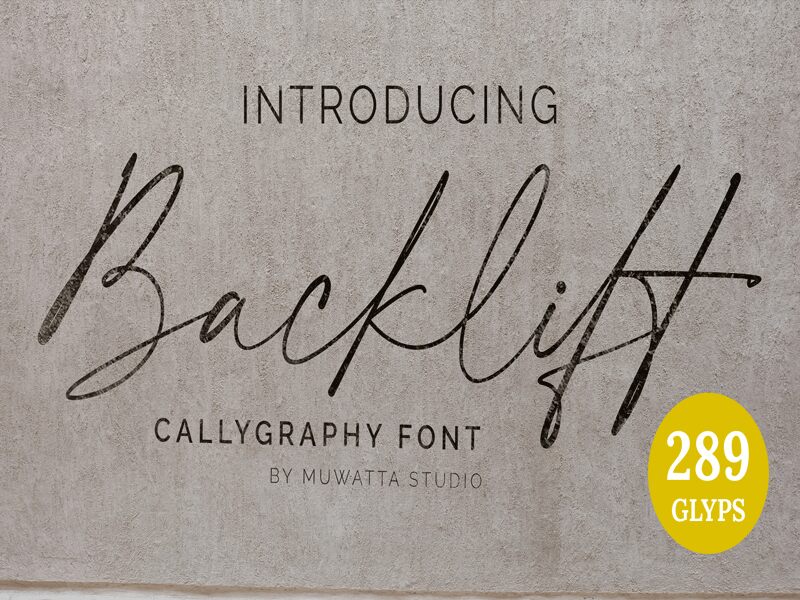
Backlift, the exquisite extra-light handwritten font by Muwatta Studio, is a true gem in the typography world. With its delicate strokes and effortless curves, this font exudes elegance and sophistication that can elevate any project to the next level. Its playful yet refined appearance makes it perfect for a wide range of design projects including wedding invitations, product packaging, branding materials, and social media graphics. Add a touch of personality and charm to your designs with Backlift - the ultimate handwritten font choice for creative endeavors.